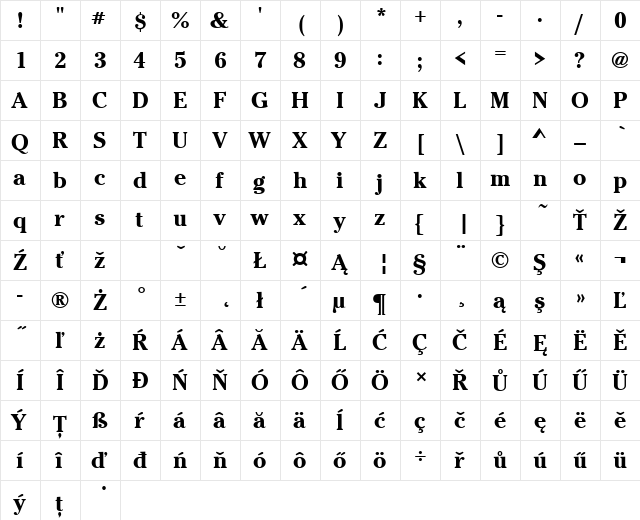
CheltenhamItcTEE Bold
Design Context for CheltenhamItcTEE Typeface
CheltenhamItcTEE is a composed and adaptable typeface that performs quietly and consistently across a wide range of design contexts. The heavy weight commands attention and anchors typographic hierarchies.